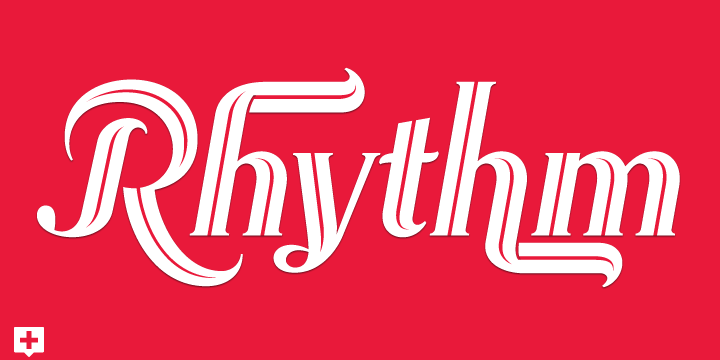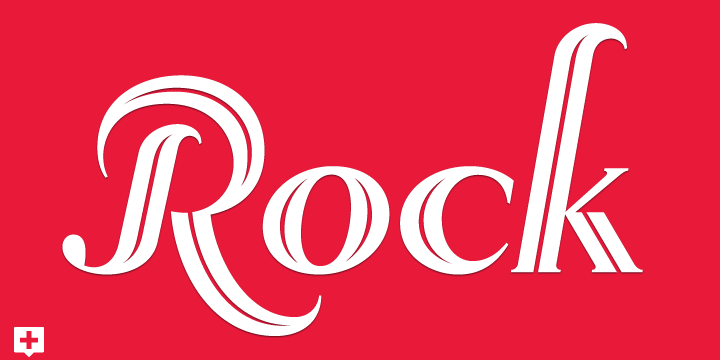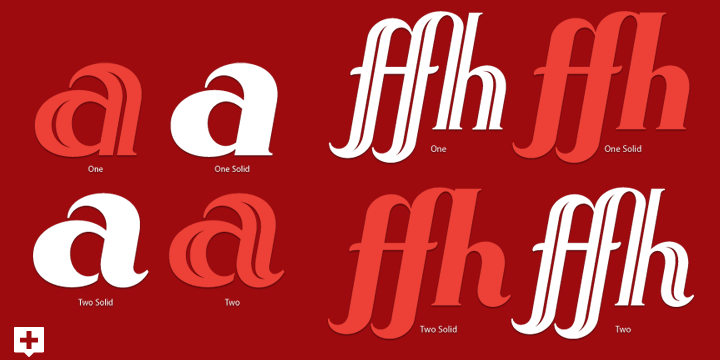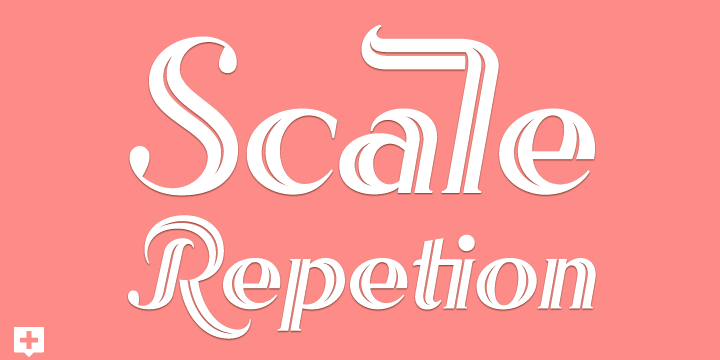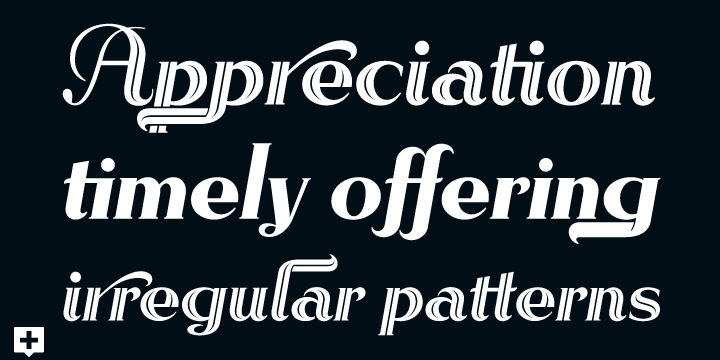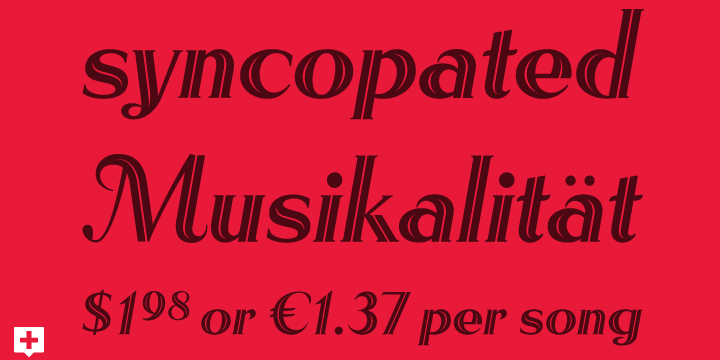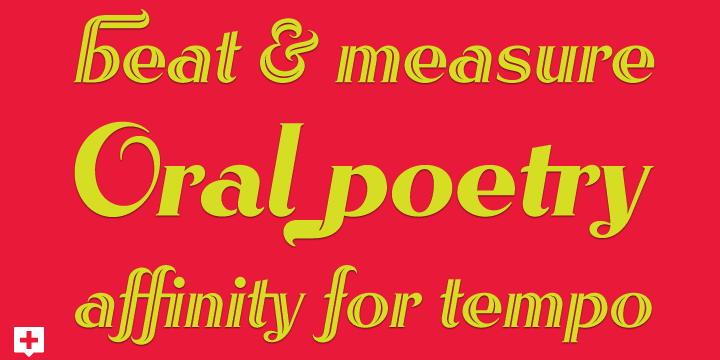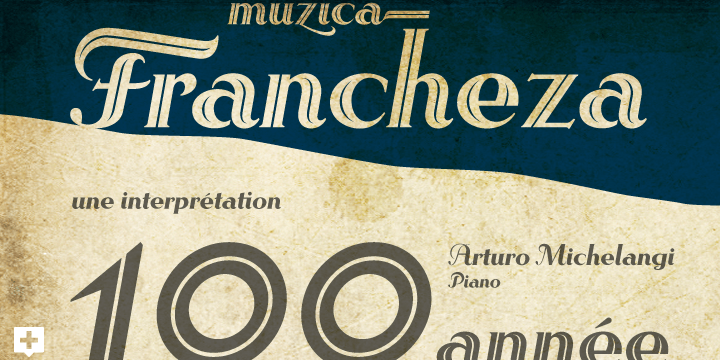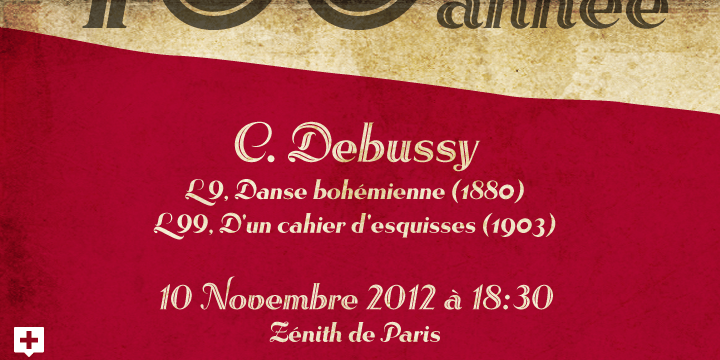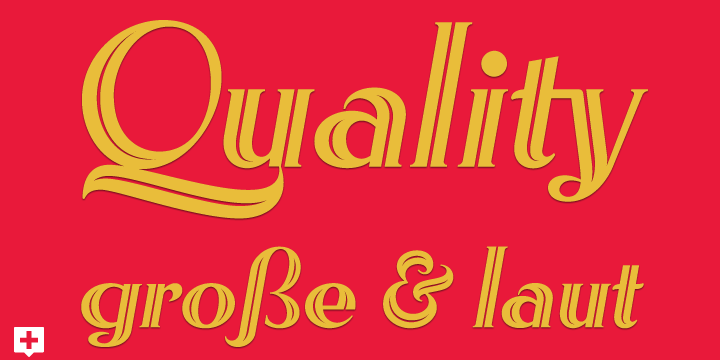
Rhythm
I hate the idea of revivals. I have publicly said I choose not to do revivals because they make me uncomfortable. This is as close as I have been to crossing my own line. To be direct, Rhythm is based on the ATF typeface, Ratio (I just recently learned the foundry of origin). I came across this typeface from a printed specimen years ago when I was in school and held onto it. It was unique and I loved how well integrated the inline worked within both the flourish and serif of the glyphs?it was old, but not, reminiscent, but fresh.
My specimen was limited in the glyph offering (it was c. 1930ish) and I realized a lot would need to be done to ?finish? it and bring it to contemporary expectations. I didn't want to do 'retro? and tried to avoid the visual trappings associated with it. What I did want to do is interpret what I had in the specimen and reinterpret it digitally, refining its construction and extending its typographic equity along the way.
The ?One? and ?Two? (and their matching ?Solids?) styles diverge providing various elaborations that coordinate well between rigid bracketed serifs and compact tails. I further expanded the glyph offering to include a full diacritic set, old style numerals, fractions, stylistic alternates, swashes, titling alternates and controlled flourishes that adhere to the efficient framework of the script. And yes, I refer to it as a 'script? because calling it a ?cutesy serif? seems wrong :)
I hope this is seen less as a slavish revival and more as a championing of a really unique typeface.
The Original Typeface was Adastra, designed by Herbert Thannhaeuser for the Foundry D. Stempel AG in Frankfurt, Germany.